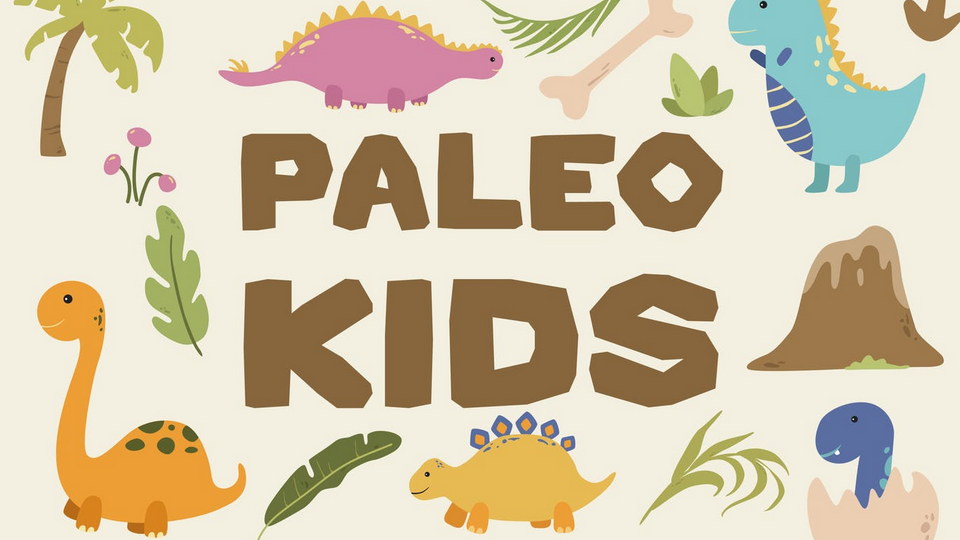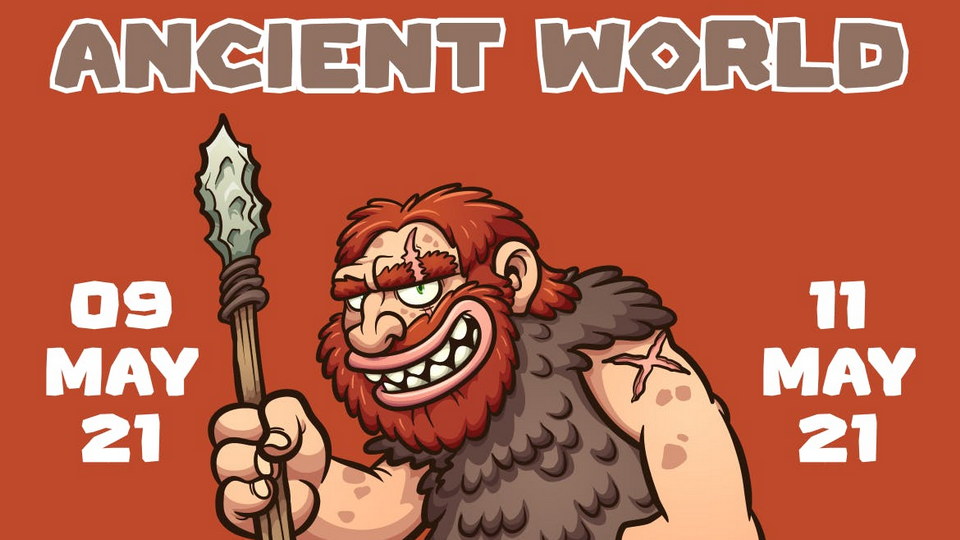
Paleo Kids – Children font
It brings the kids to the Jurassic era, the ice age where mammoth, caveman, sabre tooth, and dinosaur roams the world.
Suit perfectly for kids market, online games, stationary, t-shirt and school supplies font, poster, movie title, youtube covers, youtube thumbnails, social media page covers and so on…